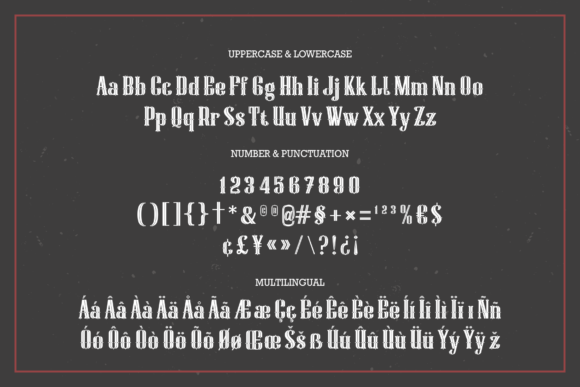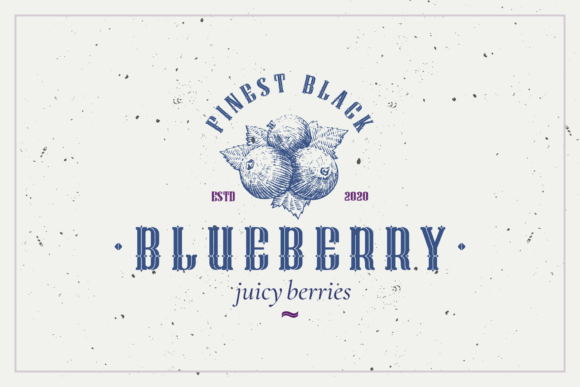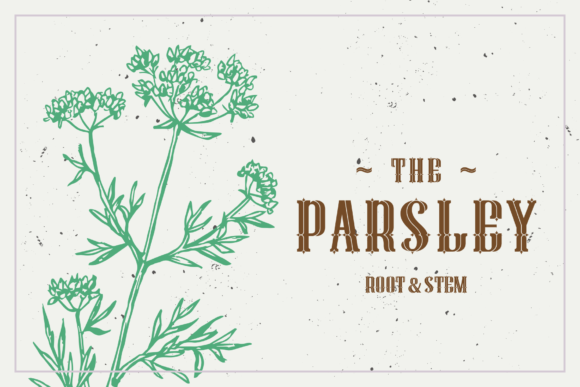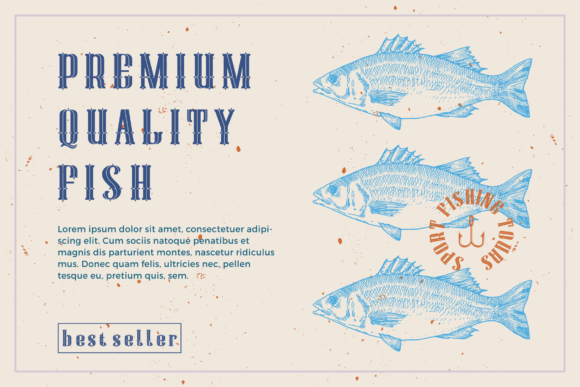
Introducing Gladhyte Font: Elevate Your Designs with a Cool and Vintage Flair
In the world of design, fonts play a pivotal role in conveying messages, evoking emotions, and creating lasting impressions. For designers and crafters seeking to add a unique touch to their creations, Gladhyte Font emerges as an exceptional choice. This cool and vintage-styled display font is designed to make your designs stand out, offering endless possibilities for creative expression.
The Charm of Gladhyte Font
Gladhyte Font boasts a distinctive vintage charm that can instantly elevate the aesthetic of your projects. Its unique design elements are carefully crafted to provide a nostalgic feel while maintaining a modern appeal. Whether you’re working on a branding project, a website design, or crafting digital content, Gladhyte Font can add that special flair that sets your work apart.
Key Features of Gladhyte Font
- Vintage Aesthetic: Gladhyte Font embodies a classic, vintage look that can add character and personality to your designs.
- Display Font: Specifically designed as a display font, Gladhyte is perfect for headlines, titles, and any prominent text in your projects.
- Cool and Unique: Its cool and unique style ensures that your designs catch the eye and leave a lasting impression.
- Versatility: From digital platforms to print materials, Gladhyte Font can be used across various mediums, offering great flexibility.
Endless Possibilities with Gladhyte Font
The versatility of Gladhyte Font means that its applications are virtually limitless. Here are a few ideas to get you started:
- Branding and Logos: Use Gladhyte Font to create memorable logos and brand names that stand out.
- Website Design: Enhance your website’s visual appeal with Gladhyte Font, making your headers and titles more engaging.
- Social Media Graphics: Make your social media posts and stories pop with this eye-catching font.
- Marketing Materials: From brochures to flyers, Gladhyte Font can add a professional yet vintage touch to your marketing materials.
- DIY Projects: Crafters can use Gladhyte Font for various DIY projects, such as making personalized gifts, decorations, or digital art.
Tips for Using Gladhyte Font Effectively
To maximize the impact of Gladhyte Font, consider the following tips:
- Pair with Simplicity: Combine Gladhyte Font with simpler fonts for body text to create visual contrast.
- Experiment with Colors: Play around with different colors to find the perfect match that enhances the vintage feel of Gladhyte Font.
- Consider Size: Use Gladhyte Font in varying sizes to emphasize certain elements and create a hierarchy in your design.
Gladhyte Font is more than just a font; it’s a design element that can transform your projects with its cool and vintage charm. By incorporating Gladhyte into your designs, you’re not just adding text—you’re creating an experience. Explore the endless possibilities with Gladhyte Font and let your creativity shine like never before.